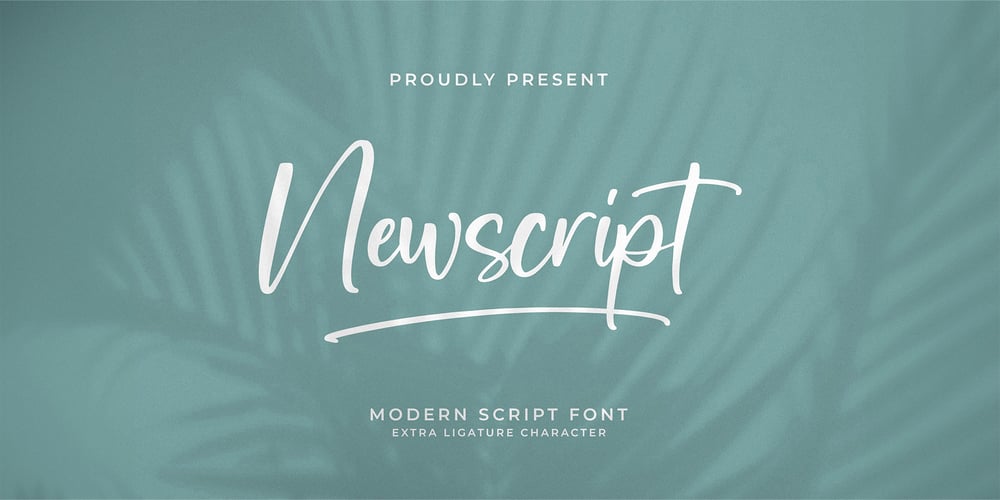
Newscript Font Family was designed by Dimas Alif Maulana and published by Integritype. Newscript contains 2 styles and family package options. Newscript – Modern Script Font, from Integritype Studio, is a premium Modern Script Font, perfect for any project like: logos, branding projects, homewares designs, product packaging, mugs, quotes, posters, shopping bags, t-shirts, covers books, business cards, invitation cards, greeting cards, labels, photography, watermarks, special events and all your other luxury projects that require a premium taste.============================================================What’s Included:NewscriptWeb FontsLigatures, Alternatives & SwashesWorks on PC & MacSimple installationsAccessible in Adobe Illustrator, Adobe Photoshop, Adobe InDesign, even working in Microsoft Word.PUA Encoded Characters – Fully accessible without additional design software.Fonts includes support for 65 languages; Afrikaans, Albanian, Asu, Basque, Bemba, Bena, Breton, Catalan, Chiga, Cornish, Danish, Dutch, English, Faroese, Filipino, French, Friulian, Galician, German, Gusii, Indonesian, Irish, Italian, Kabuverdianu, Kalenjin, Kinyarwanda, Luo, Luxembourg, Luyia, Machame, Makhuwa-Meetto, Makonde, Malagasy, Manx, Morisyen, North Ndebele, Norwegian Bokmål, Nynorsk Norwegian, Nyankole, Oromo, Portuguese, Quechua, Romansh, Rombo, Rundi, Rwa, Samburu, Sango , Sangu, Scottish Gaelic, Sena, Shambala, Shona, Soga, Somali, Spanish, Swahili, Swedish, Swiss, German, Taita, Teso, Uzbek (Latin), Volapük, Vunjo, Zulu,========================================================